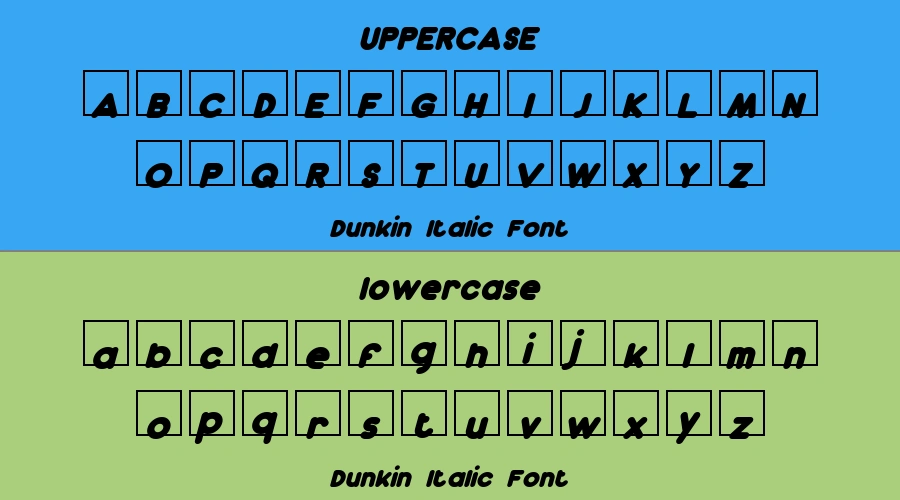
About Dunkin Italic Font
Designed with precision, Dunkin Italic Font merges bold expressions with visual comfort in every character. This versatility makes it particularly effective for corporate reports, where personality and cultural relevance directly impact communication quality. Each letterform demonstrates meticulous craftsmanship.
Technical excellence shines through elements like rounded corners and stylistic sets, enhancing typographic versatility. In brand logos settings, Dunkin Italic Font proves its worth through superior multi-language support. The thoughtful execution of terminal angle and cultural relevance ensures professional results.